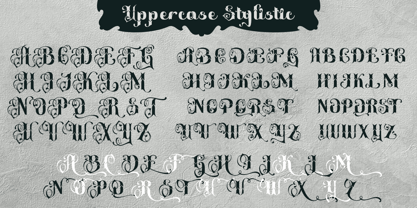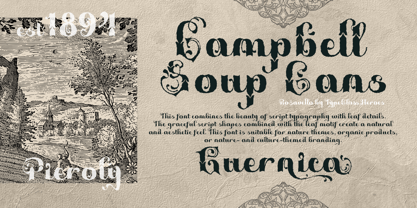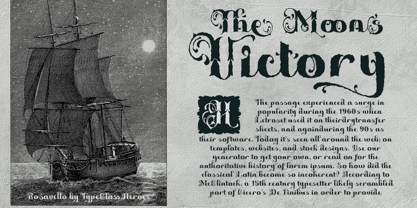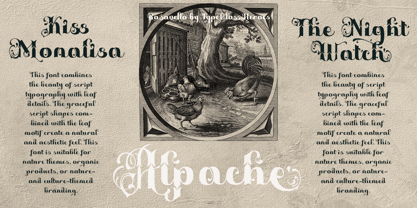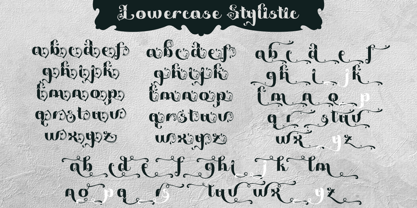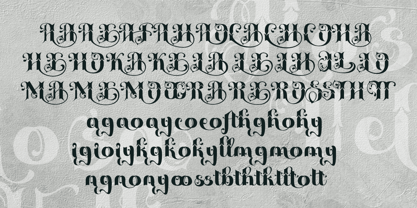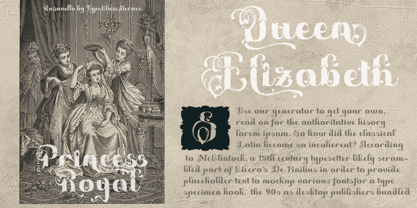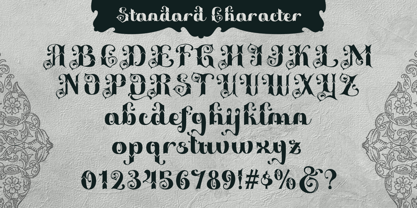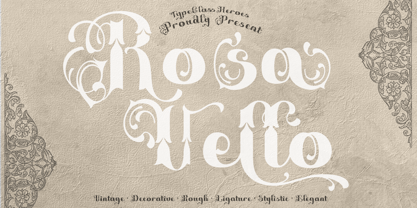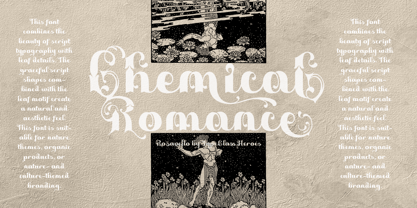
Rosavello
by TypeClassHeroes
The Rosavello Font Family was designed by Suandana ipandemade and published by TypeClassHeroes. Rosavello contains 2 styles and family package options. More about this family
Introducing Rosavello, this font combines the beauty of script typography with leaf details. The graceful script shapes combined with the leaf motif create a natural and aesthetic feel. This font is suitable for nature themes, organic products, or nature and culture themed branding or any type of advertising purpose makes it ideal for whether you’re creating digital content or printed materials.